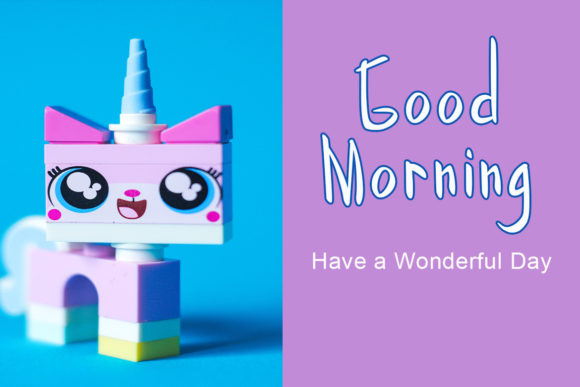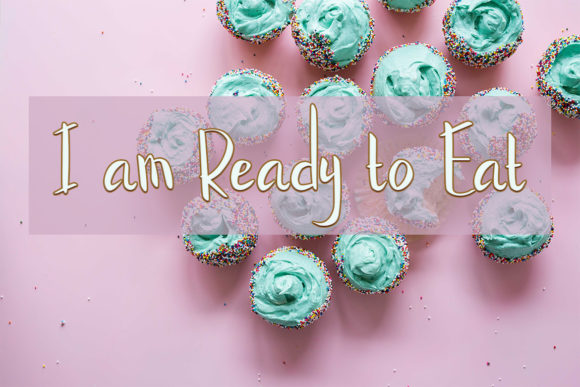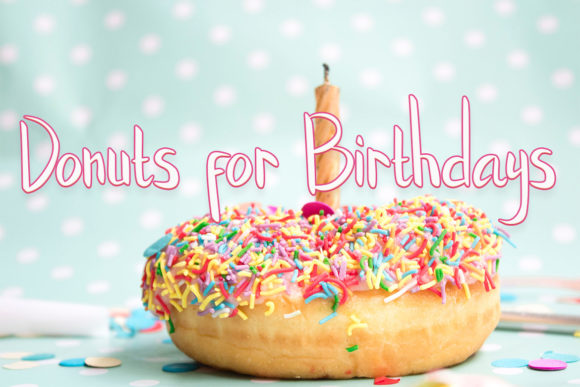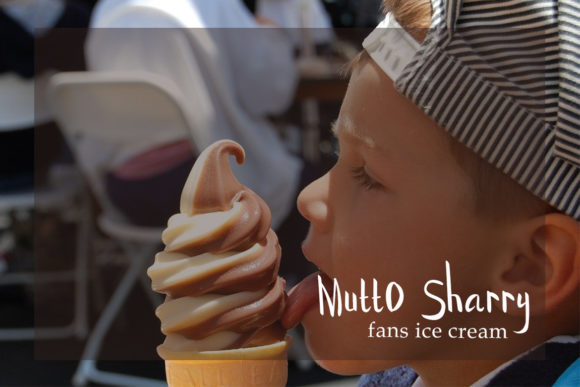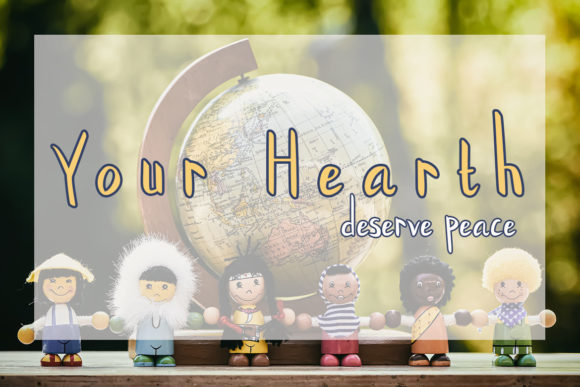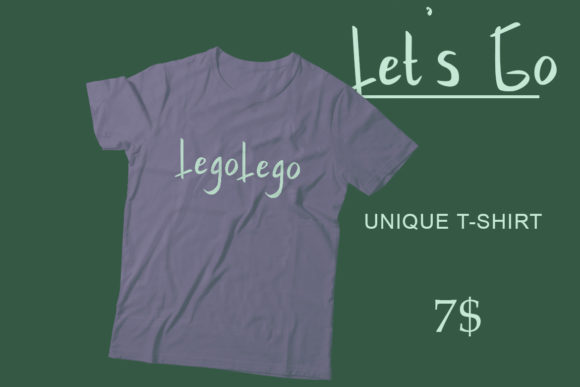
Discover the Cool and Relaxed Style of Black Legoland Font
Are you tired of using the same old fonts in your designs? Look no further than the Black Legoland Font, a relaxed and cool script font that’s sure to elevate your creations. With its neat craftsmanship and high level of detail, this font is a wonderful asset to any font library. In this article, we’ll dive into the features and benefits of Black Legoland Font, and explore how it can enhance your designs.
What is Black Legoland Font?
Black Legoland Font is a script font that’s designed to bring a touch of coolness and relaxation to your designs. With its smooth and flowing lines, this font is perfect for creating a laid-back vibe in your projects. Whether you’re working on a logo, a poster, or a website, Black Legoland Font is a versatile choice that can adapt to any topic or theme.
Key Features of Black Legoland Font
- Relaxed and Cool Style: Black Legoland Font has a unique and refreshing style that’s perfect for designers who want to create a laid-back atmosphere in their designs.
- Highly Detailed: This font is crafted with attention to detail, ensuring that every letter and character is precise and clean.
- Neatly Crafted: The font’s neat craftsmanship makes it easy to read and understand, even at small sizes.
- Versatile: Black Legoland Font can be used in a wide range of projects, from logos and posters to websites and social media graphics.
Benefits of Using Black Legoland Font
So why should you choose Black Legoland Font for your designs? Here are just a few benefits of using this amazing font:
- Adds a Touch of Coolness: Black Legoland Font can add a cool and relaxed vibe to your designs, making them more appealing to your audience.
- Enhances Readability: The font’s clear and precise letters make it easy to read, even for long blocks of text.
- Versatile and Adaptable: Black Legoland Font can be used in a wide range of projects and themes, making it a valuable addition to any font library.
- Unique and Creative: With its unique style and flair, Black Legoland Font can help your designs stand out from the crowd.
How to Use Black Legoland Font in Your Designs
Using Black Legoland Font in your designs is easy and straightforward. Here are a few tips to get you started:
- Pair it with Other Fonts: Combine Black Legoland Font with other fonts to create a unique and interesting contrast.
- Use it for Headings and Titles: Black Legoland Font is perfect for headings and titles, where its bold and playful style can really shine.
- Add it to Your Font Library: With its versatility and adaptability, Black Legoland Font is a great addition to any font library.
In conclusion, Black Legoland Font is a relaxed and cool script font that’s perfect for designers who want to add a touch of laid-back style to their creations. With its neat craftsmanship, high level of detail, and versatility, this font is a wonderful asset to any font library. Whether you’re working on a logo, a poster, or a website, Black Legoland Font is a great choice that’s sure to enhance your designs.